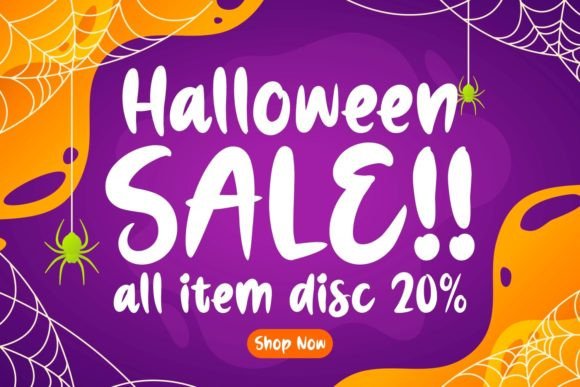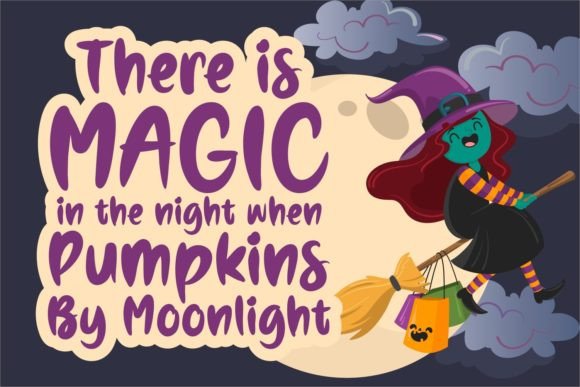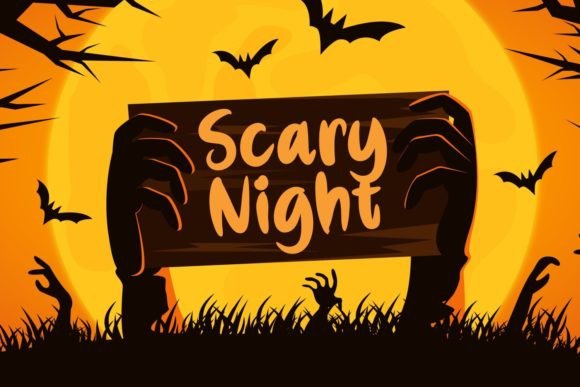
Introducing Ghost Pumpkin Font: The Perfect Addition to Your Halloween-Themed Projects
Are you looking for a font that captures the essence of Halloween? Do you want to add a touch of spookiness and whimsy to your designs? Look no further than the Ghost Pumpkin font! This fun and quirky handwritten display font is perfect for all your Halloween-themed projects, and we’re excited to share its features and benefits with you.
What is Ghost Pumpkin Font?
Ghost Pumpkin is a unique and eye-catching handwritten display font that exudes a slightly spooky vibe. Its playful and whimsical design makes it an excellent choice for Halloween-themed projects, such as party invitations, decorations, and social media graphics. The font’s distinctive character and charm are sure to make your designs stand out from the crowd.
Key Features of Ghost Pumpkin Font
- Handwritten Display Font: Ghost Pumpkin is a carefully crafted handwritten display font that boasts a personal and artistic touch.
- Slightly Spooky Vibe: The font’s design is infused with a hint of spookiness, making it perfect for Halloween-themed projects.
- Whimsical and Fun: Ghost Pumpkin’s playful and whimsical design ensures that your projects will be anything but ordinary.
- High-Quality Design: The font is meticulously designed to ensure that it looks great in any design project.
Why Choose Ghost Pumpkin Font?
So, why should you choose Ghost Pumpkin font for your Halloween-themed projects? Here are just a few compelling reasons:
- Unique and Eye-Catching: The font’s distinctive design ensures that your projects will grab attention and stand out from the crowd.
- Versatile: Ghost Pumpkin font can be used in a wide range of design projects, from party invitations to social media graphics.
- Perfect for Halloween: The font’s spooky and whimsical design makes it the perfect choice for all your Halloween-themed projects.
How to Use Ghost Pumpkin Font in Your Designs
Using Ghost Pumpkin font in your designs is easy! Here are a few tips to get you started:
- Pair it with Other Fonts: Combine Ghost Pumpkin font with other fonts to create a unique and visually appealing design.
- Add Graphics and Images: Incorporate graphics and images to enhance your design and make it more engaging.
Here are a few additional tips and tricks for designers and crafters looking to get the most out of Ghost Pumpkin font:
- Use it for Party Invitations: Create spooky and fun party invitations that will set the tone for your Halloween celebration.
- Create Social Media Graphics: Use Ghost Pumpkin font to create eye-catching social media graphics that will grab attention and drive engagement.
- Add it to Your Craft Projects: Incorporate Ghost Pumpkin font into your craft projects, such as handmade cards and decorations.